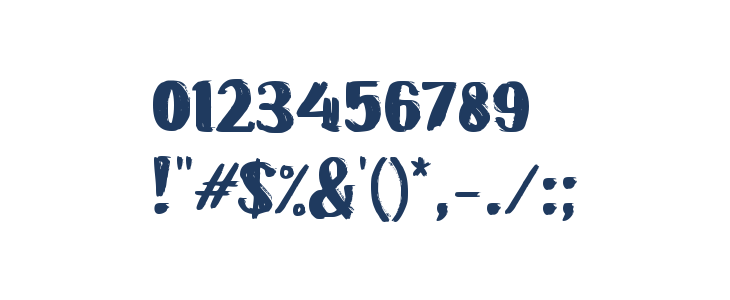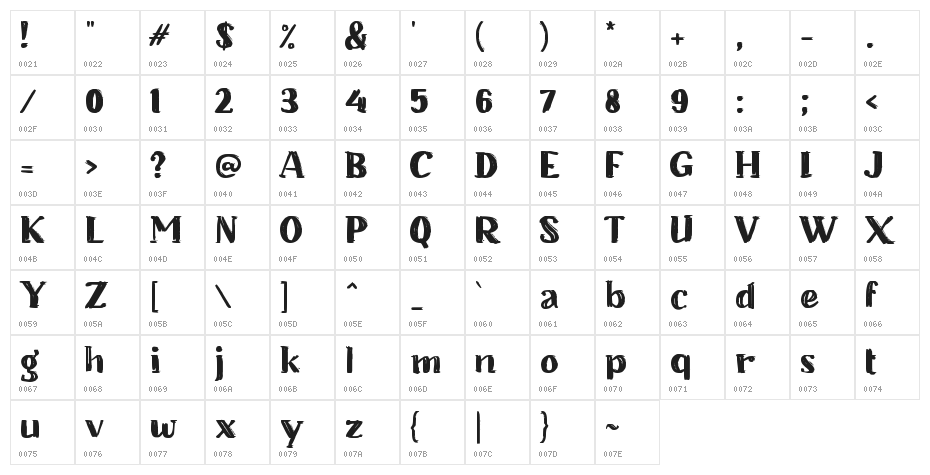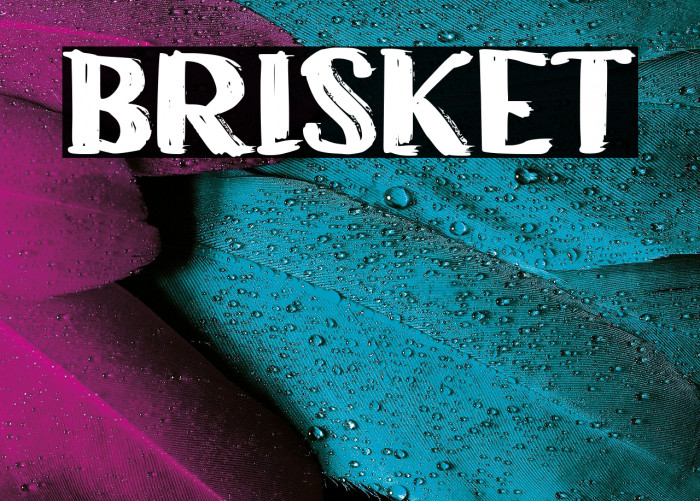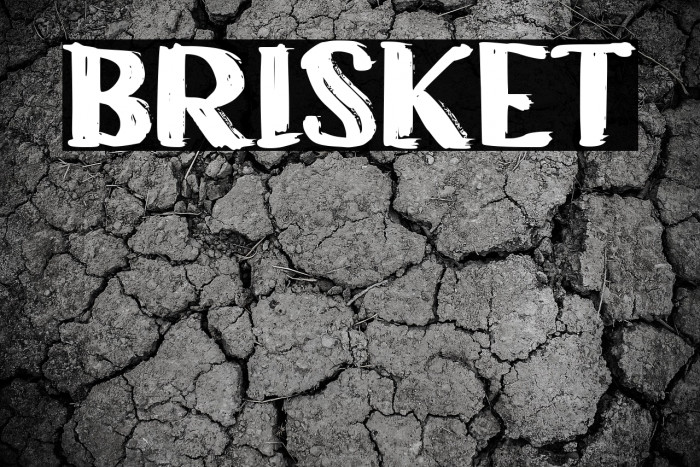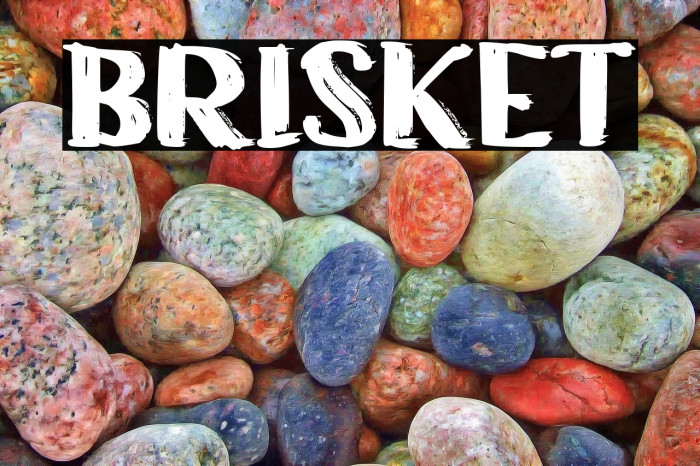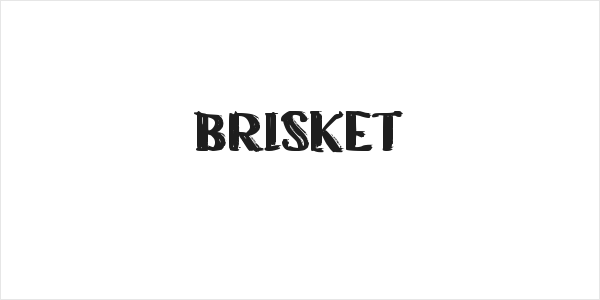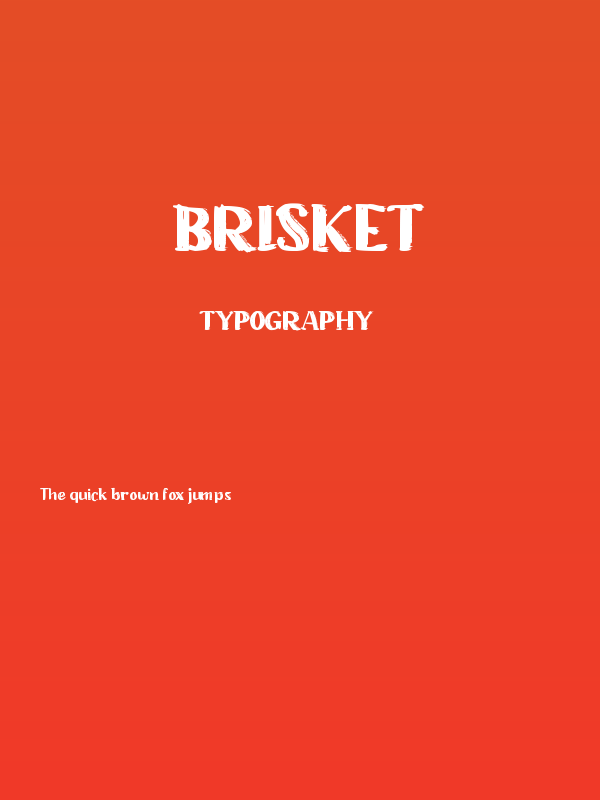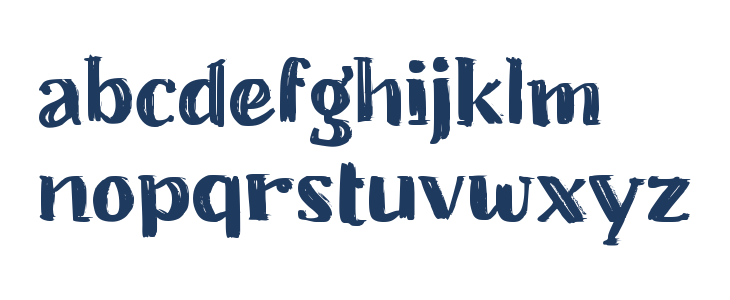
BRISKET Font
BRISKET Description
This font features a bold and expressive style with a brush-like texture that gives it a dynamic and energetic appearance. The strokes are uneven, adding a sense of movement and spontaneity. The uppercase letters are robust and commanding, while the lowercase letters maintain a consistent flow. Numbers and special characters are equally bold, ensuring a cohesive look across all text. The font's rough edges and varying stroke widths contribute to its handcrafted feel, making it ideal for projects that require a personal touch or artistic flair.
| Proposed Projects | Ideal for posters, branding, packaging, and any design that seeks to convey energy and creativity. |